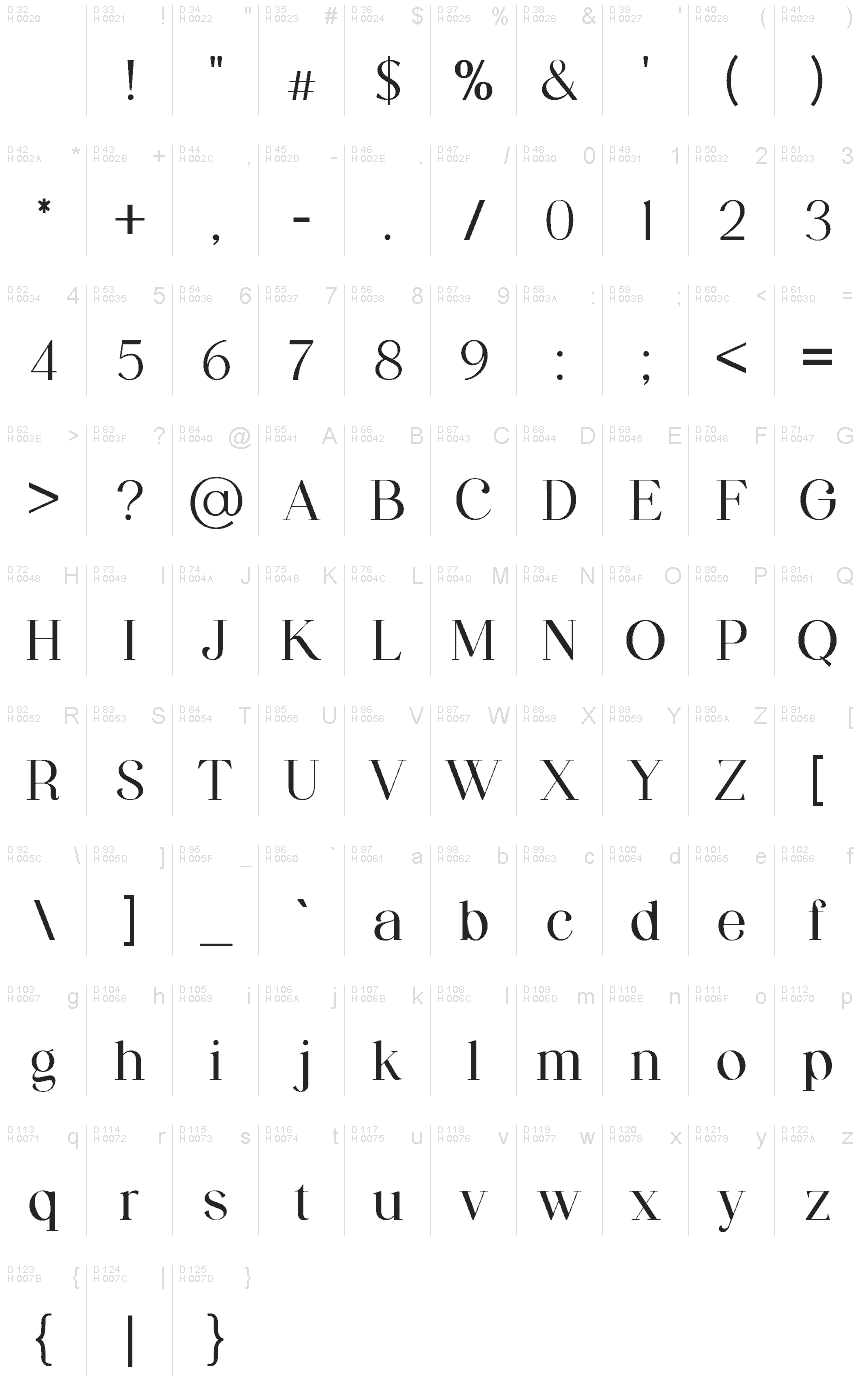
mindleast Regular
Mindleast font by UI Creative offers an elegant and sophisticated example of a formal serif typeface. Its slender, rounded style has classic tones which create premium, prestigious text that holds the eye’s attention. Each character in this serif is unique with beautiful detailing which expresses softness to each item that helps them contrast but conjugate perfectly.
Use in branding, advertising, packaging, apparel design or within magazines and book covers. Elegant labels would look sharp when enhanced with Mindleast as well as tarot cards or wedding invitations among many other uses.